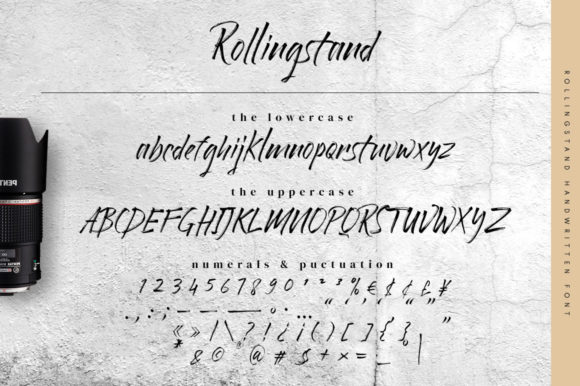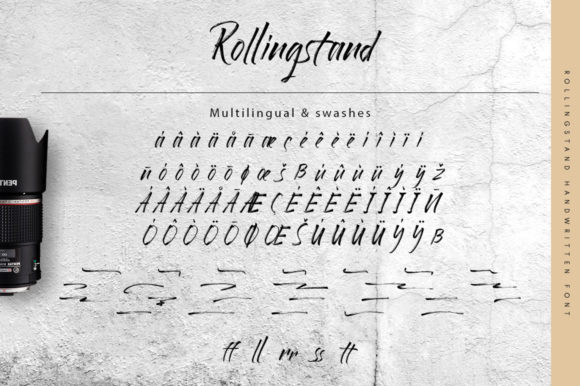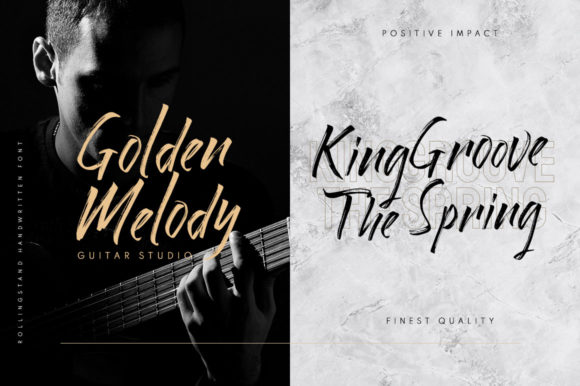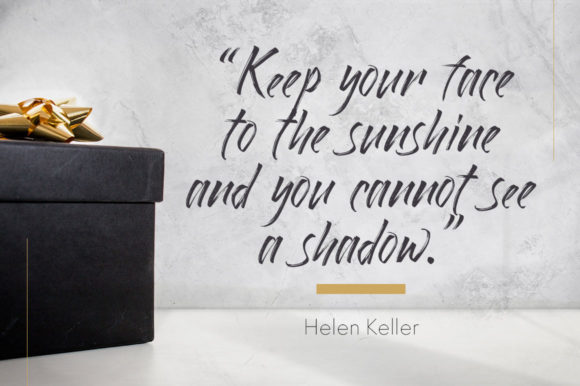
About Rollingstand Font
Rollingstand is a modern handwritten font with quick-drying strokes. It is perfect for photography, watermarks, social media posts, advertisements, logos & branding, invitation, product designs, label, stationery, wedding designs, product packaging, special events and much more!